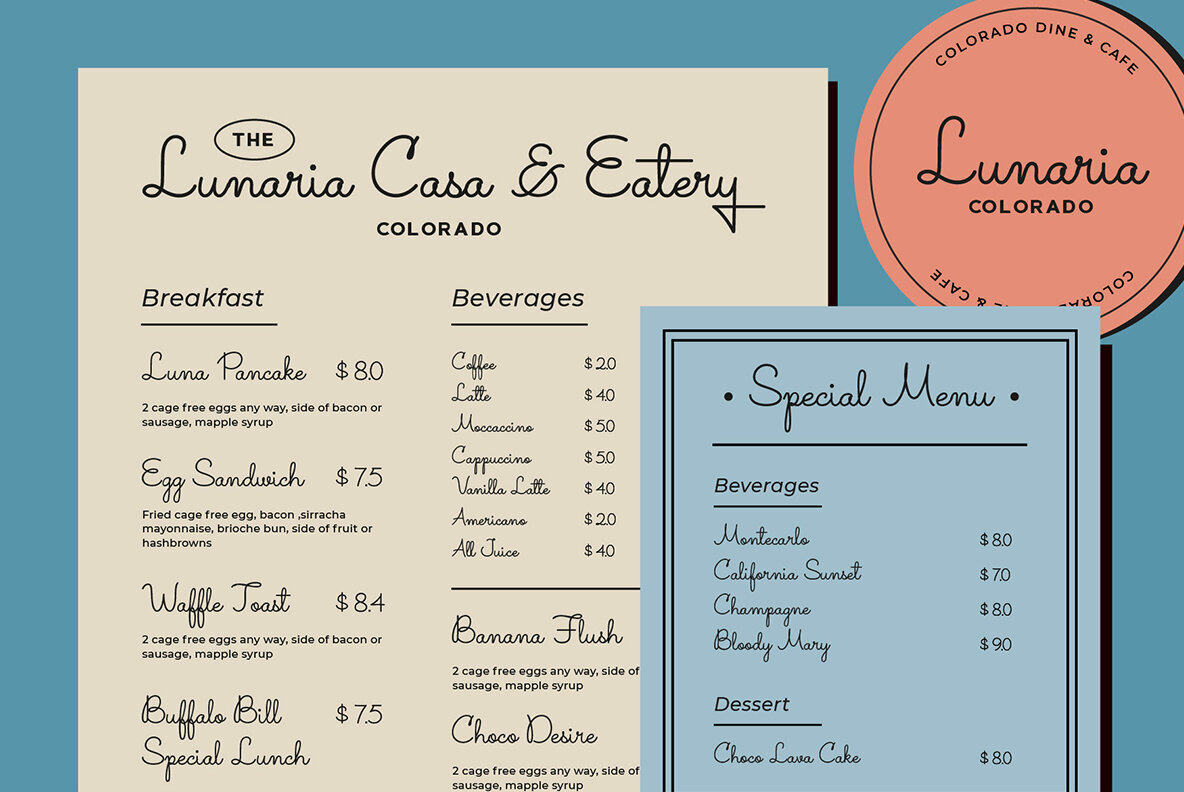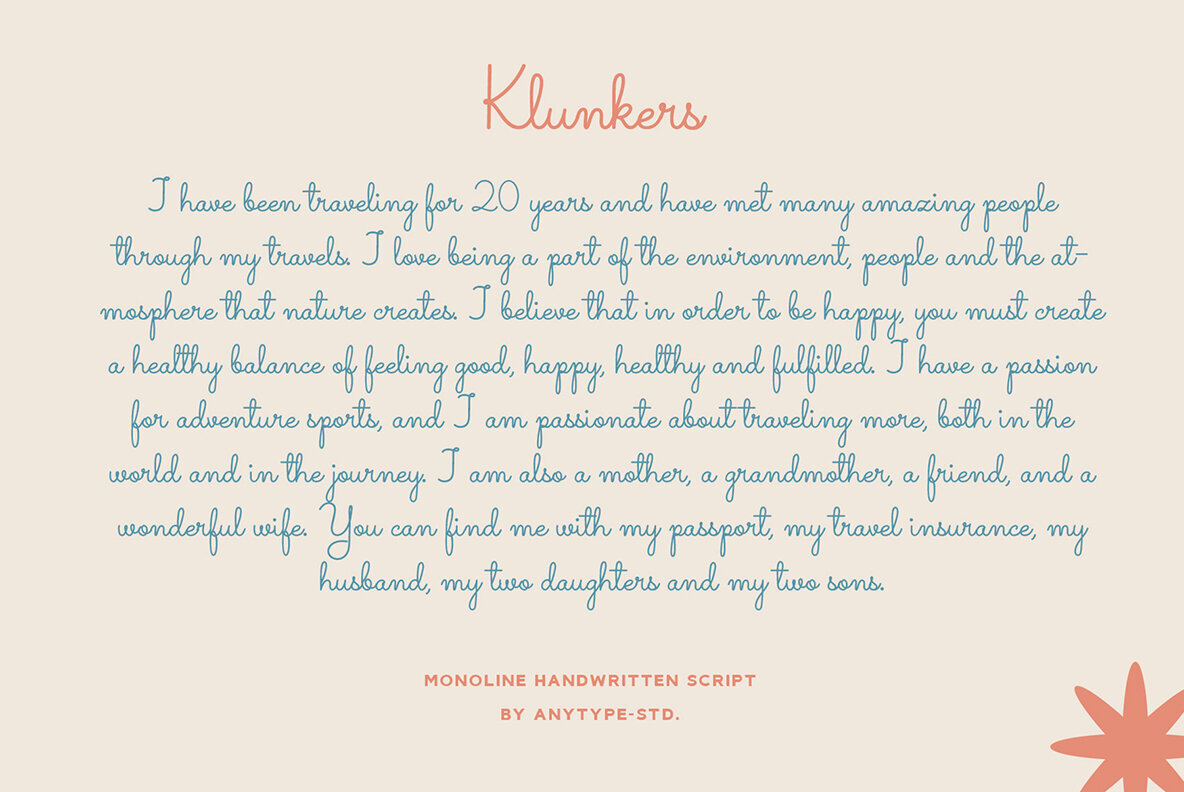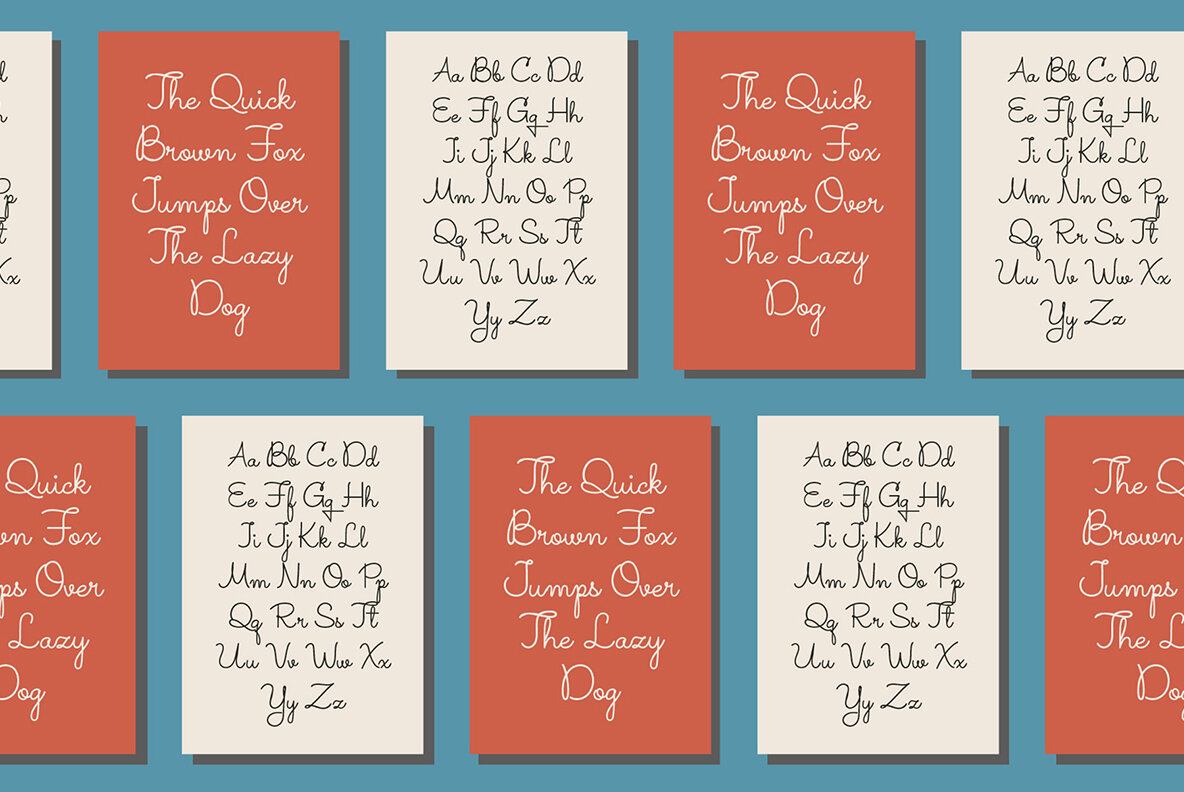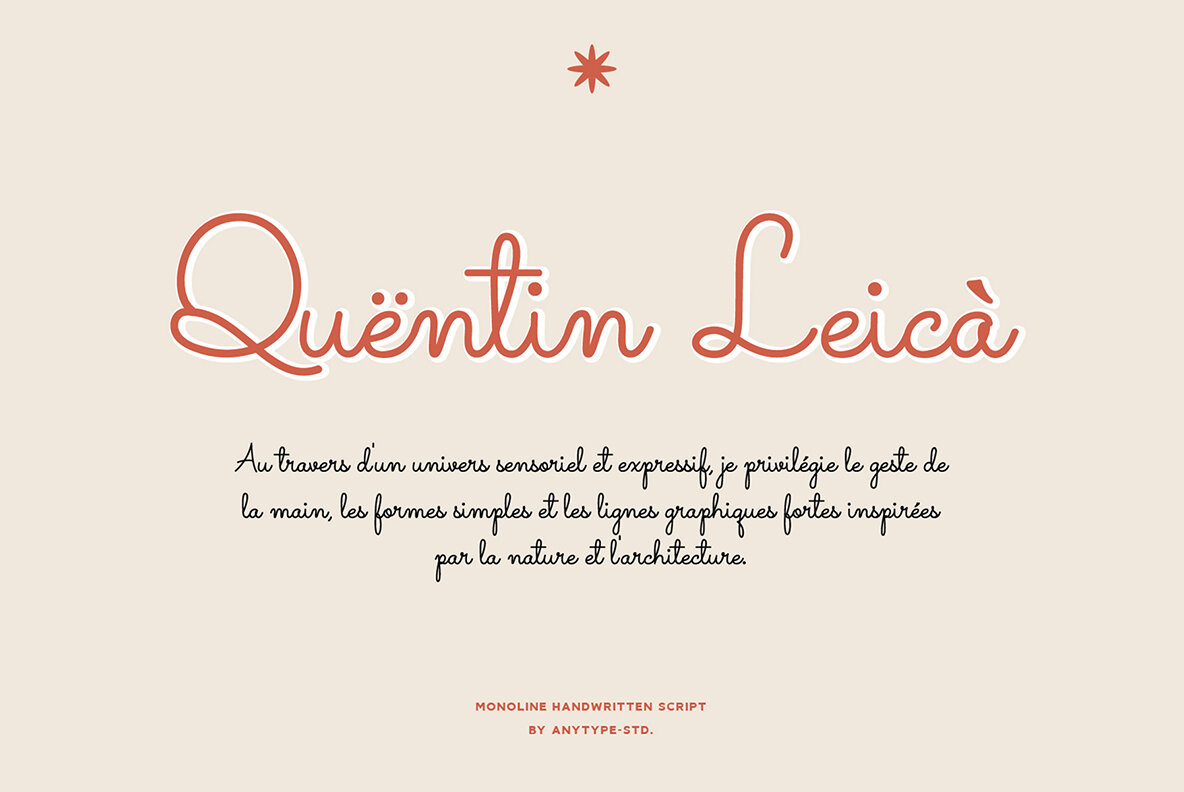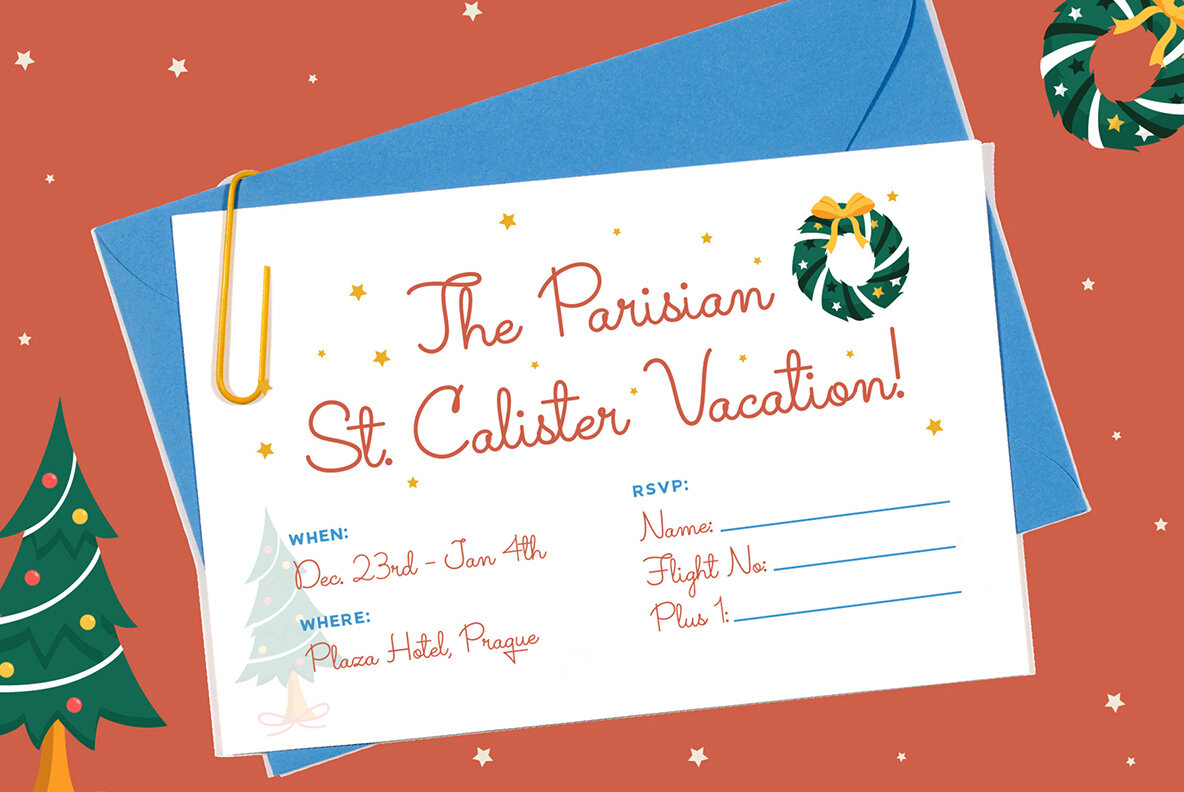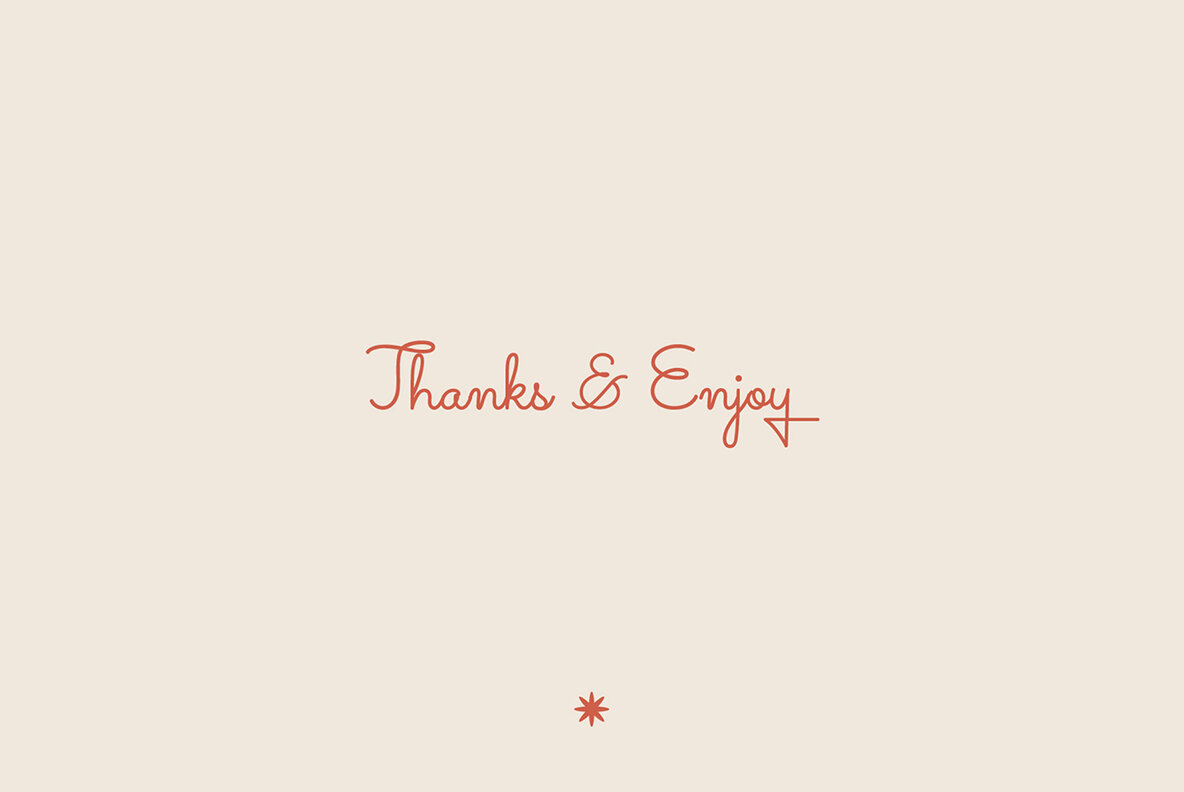
Klunkers Script Font
Klunkers Script Regular
Klunkers Script draws inspiration from handwritten notes, pop culture nuances, and urban influences, offering a unique touch to any design. Its playful strokes and accessible style make it an excellent choice for diverse creative projects. Whether you're crafting a logotype, designing printed quotes, or conceptualizing invitations and cards, Klunkers Script seamlessly enhances the emotional impact of your visuals. It also shines in product packaging, headers, letterheads, posters, apparel designs, and labels.Klunkers Script: A Casual Typeface for Creative Ventures